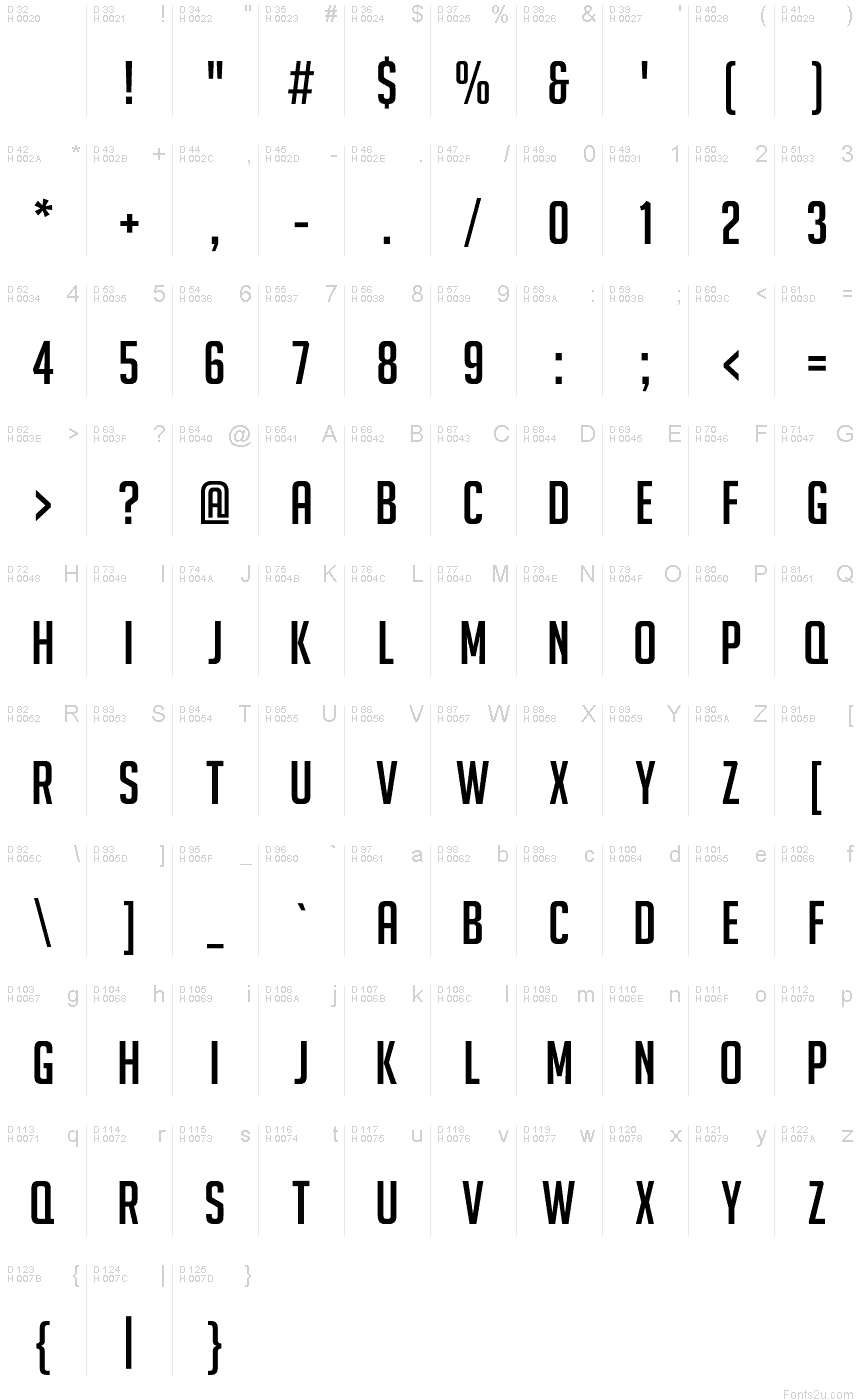
BigNoodleTitling
Big Noodle Titling font by James Arboghast / Sentinel Type is a free condensed sans serif typeface that’s built for loud, ultra-efficient headlines. Its tall, narrow letters pack thick black strokes into a tight column, giving you huge impact even when space is brutally limited. The rhythm is fast and vertical, with squared curves and blunt, industrial endings that feel strong, direct, and a little gritty-like stenciled typography stretched for maximum punch.
Using Big Noodle Titling, you can squeeze commanding titles into banners, sports graphics, esports branding, movie posters, album covers, and bold social media ads without sacrificing legibility. This free font thrives in all caps at large sizes, where its heavy forms read instantly from a distance. Pair it with a clean, open grotesk or geometric sans for body copy to let Big Noodle Titling handle the shouting while the secondary type stays calm and readable.